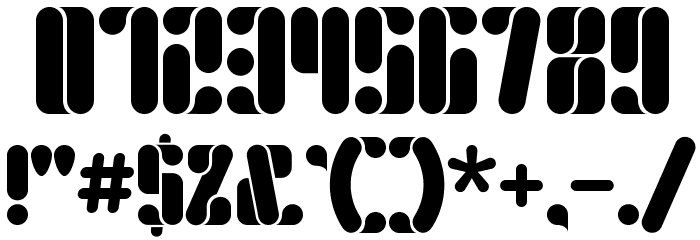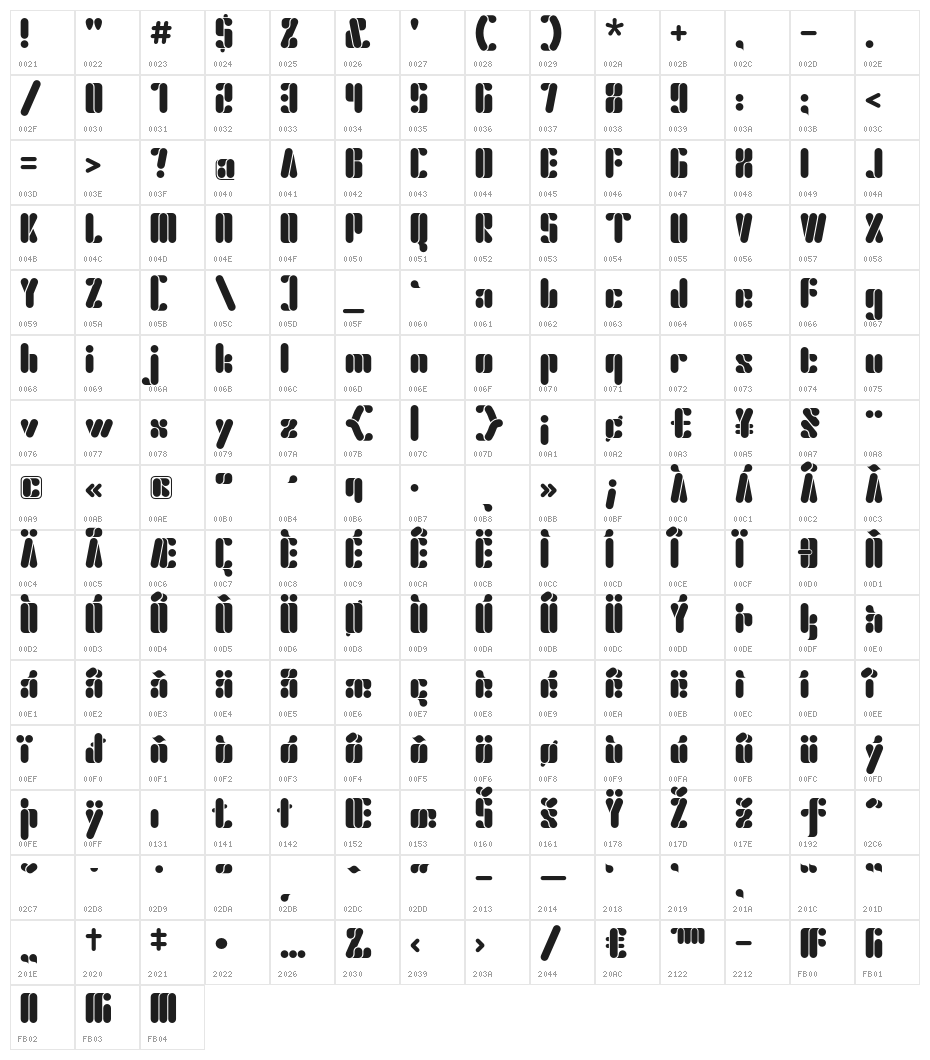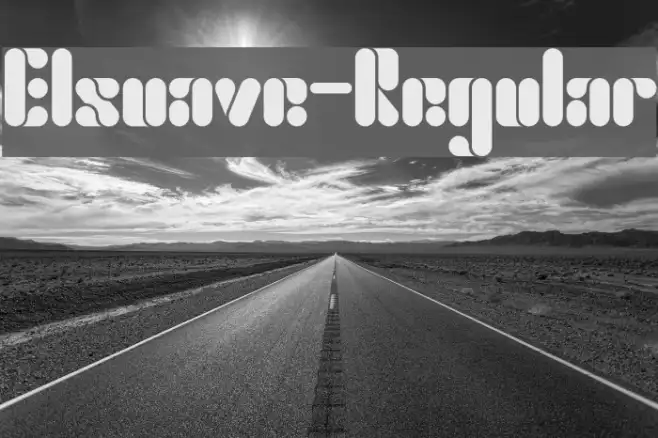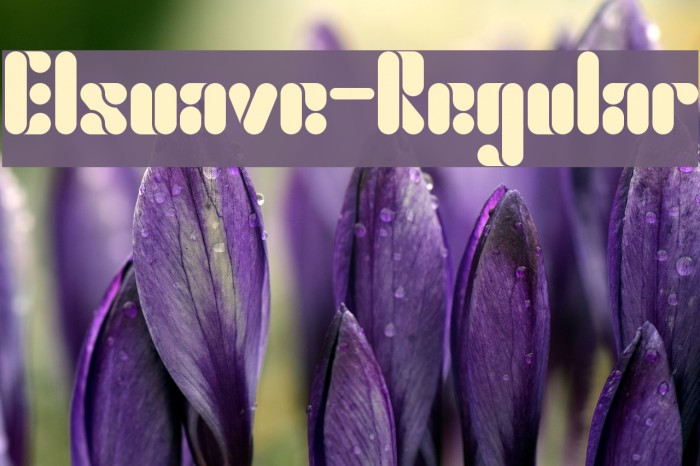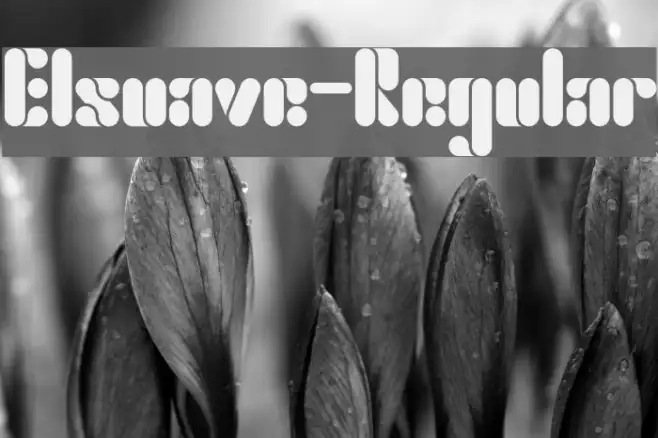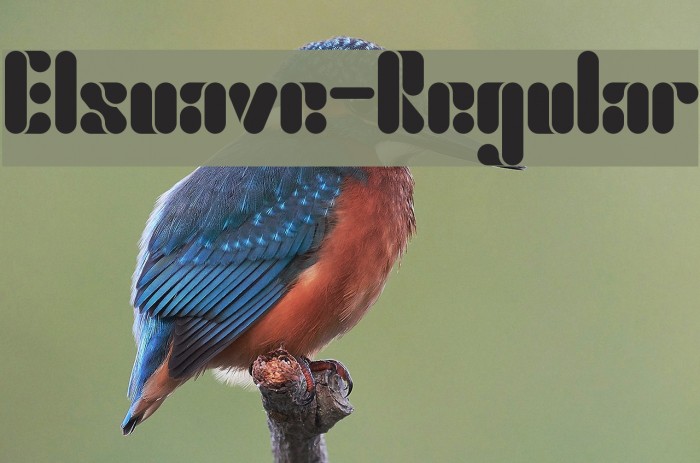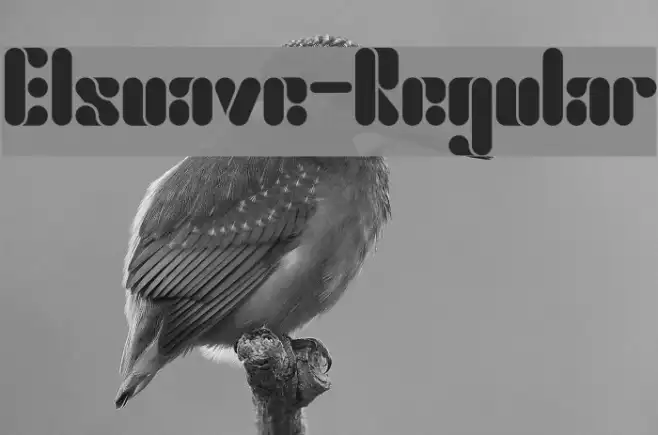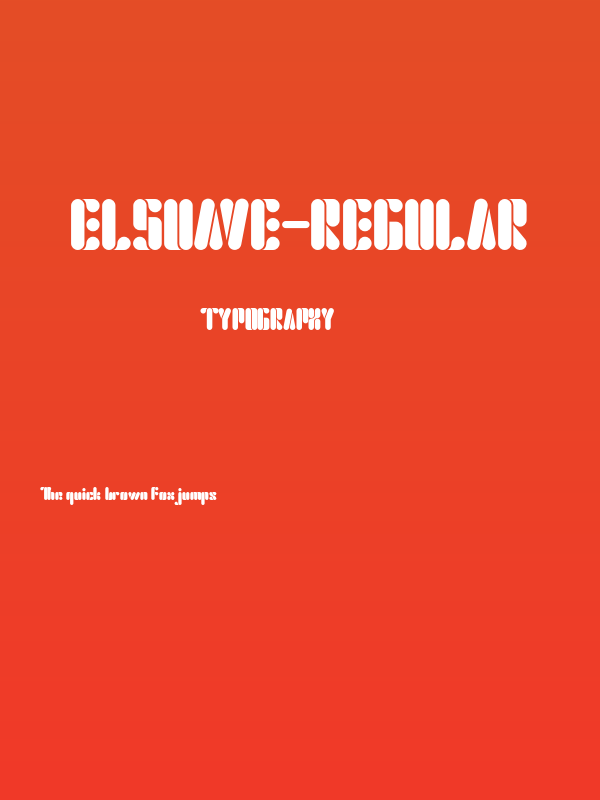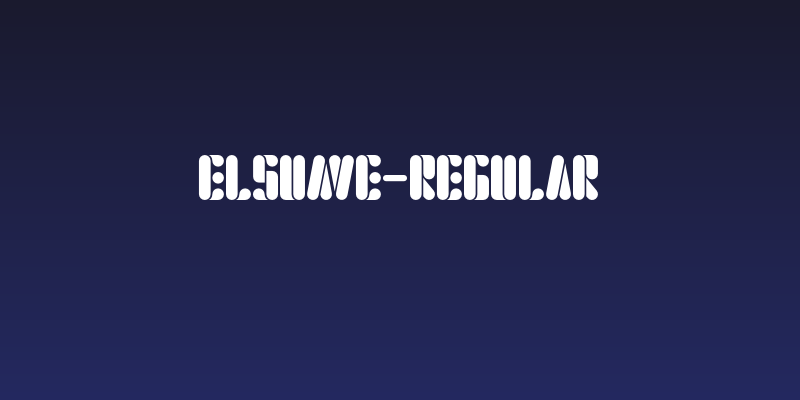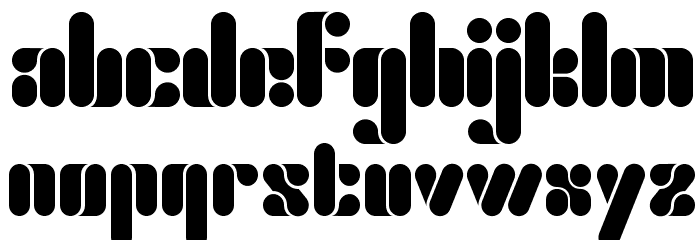
Elsuave-Regular Font
Elsuave-Regular Description
This font features a bold, geometric design with a unique stencil-like appearance. Each character is composed of solid, rounded shapes that create a sense of rhythm and movement. The uppercase and lowercase letters maintain a consistent style, with the lowercase being slightly more compact. Numbers and special characters follow the same design principles, ensuring uniformity across all glyphs. The font's distinct style makes it highly recognizable and suitable for creative and modern applications.
| Proposed Projects | Ideal for branding, posters, album covers, and any project requiring a bold, modern look. |